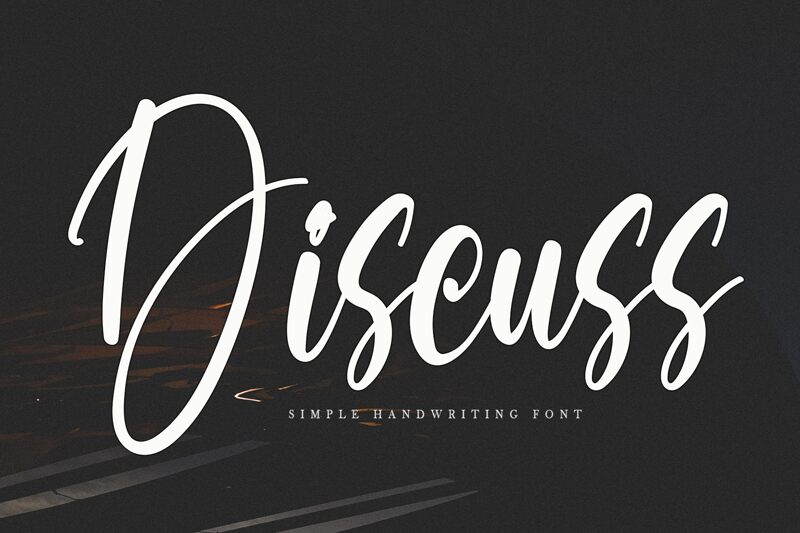
Discuss font by creatype designer is a single handwritten free font with an attractive feel. The font exhibits a personal touch with its flowing characters and uniform letter design. Presenting a true handwritten authenticity, the font shares a luxurious feel that makes it ideal for projects of a demanding quality. Discuss has been mostly designed for print purposes, with its primary suitable application being headlines.
Discuss is highly suitable for packaging designs, posters, logos, advertisements, invitations, coloring projects, postcards, web design, stationery projects, book covers, and branding. However, this does not mean it doesn’t excellently perform on digital platforms.
This font retains a classy calligraphic influence while feeling contemporary and fresh. Its versatility will inspire a wide range of creative projects, from letterheads and titles to stationery.